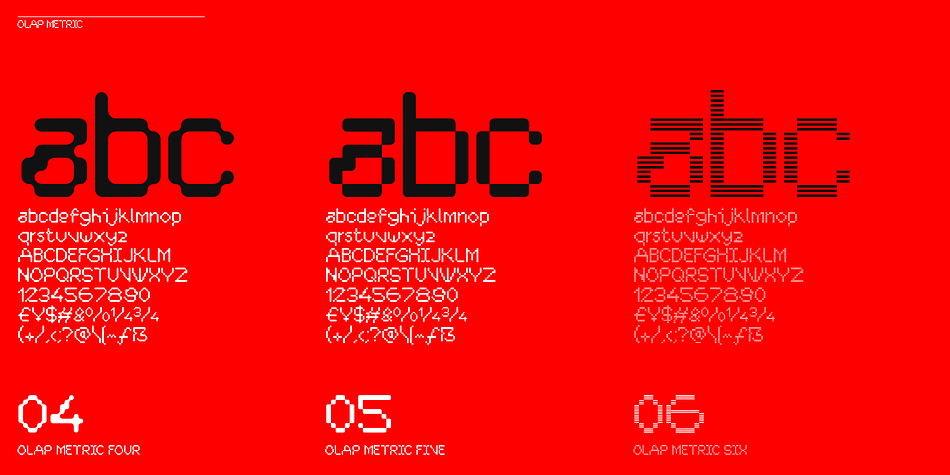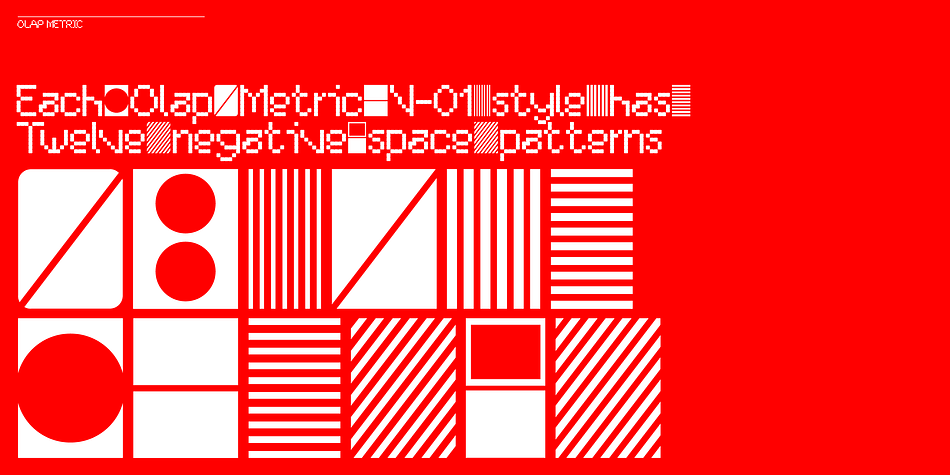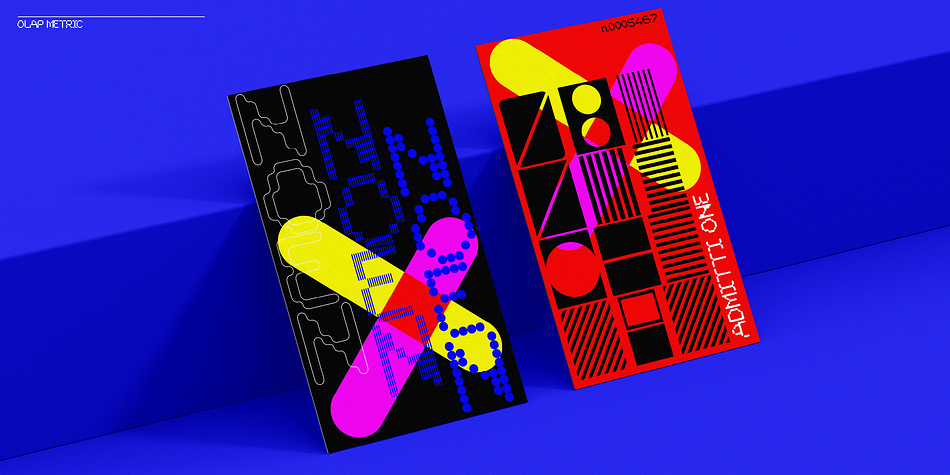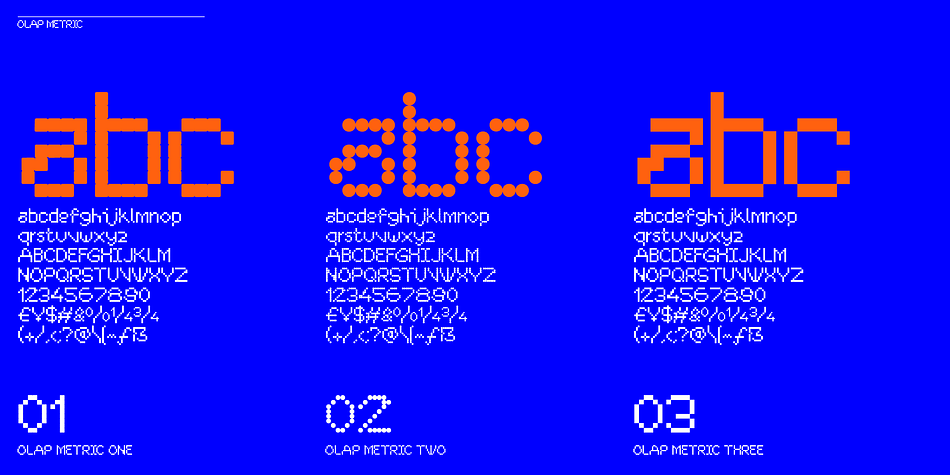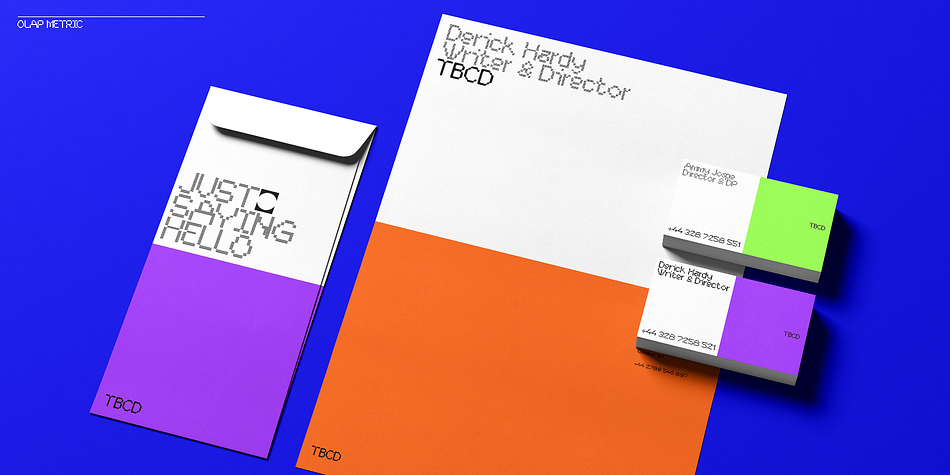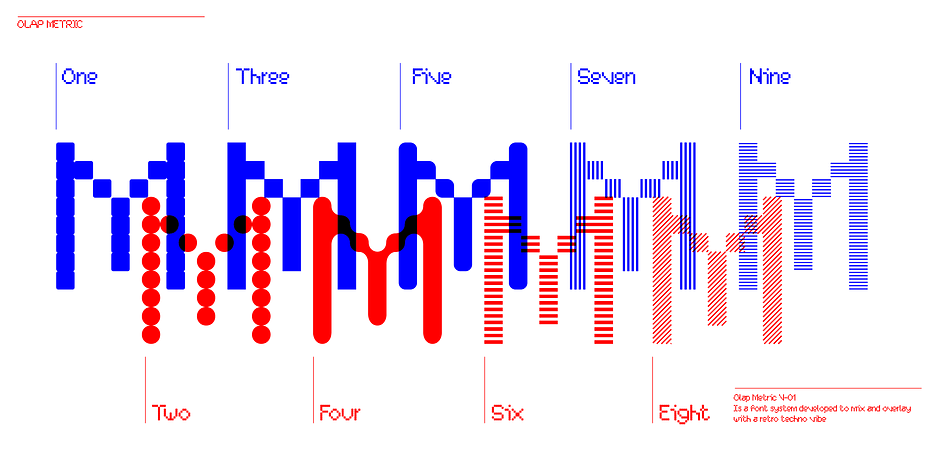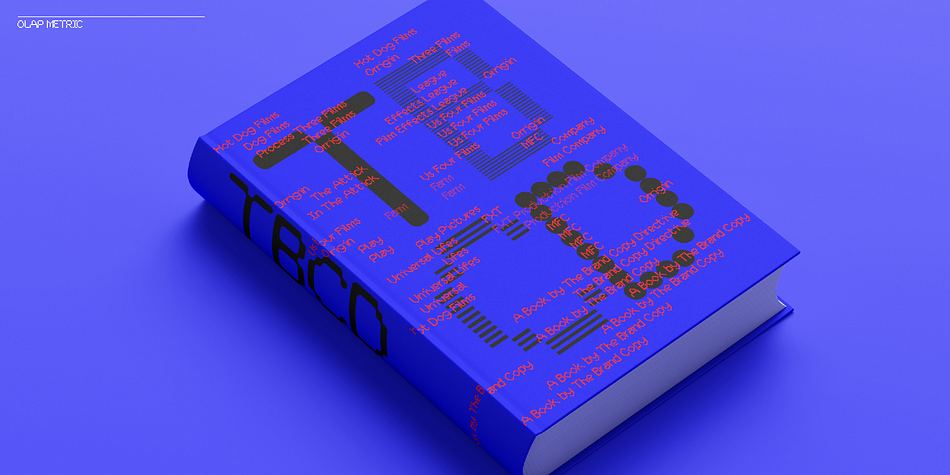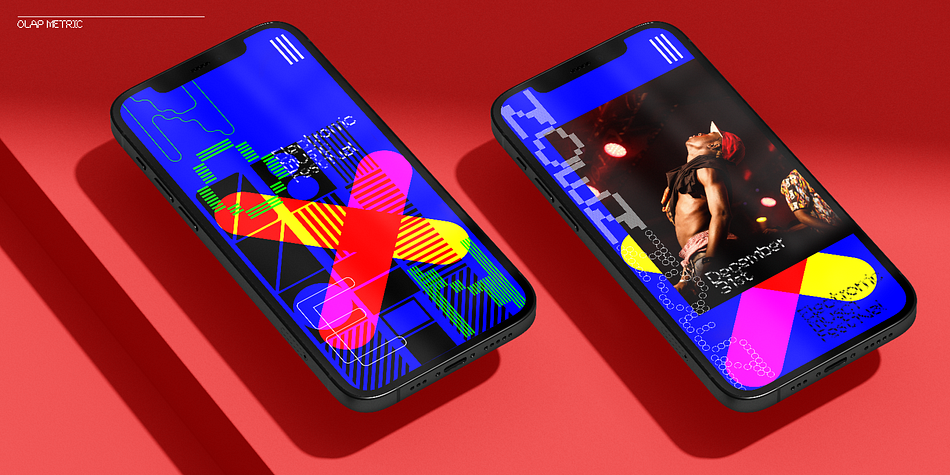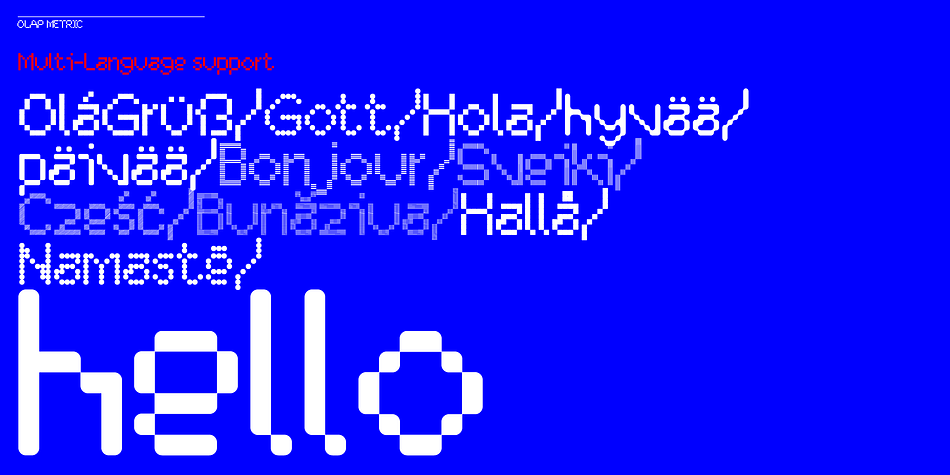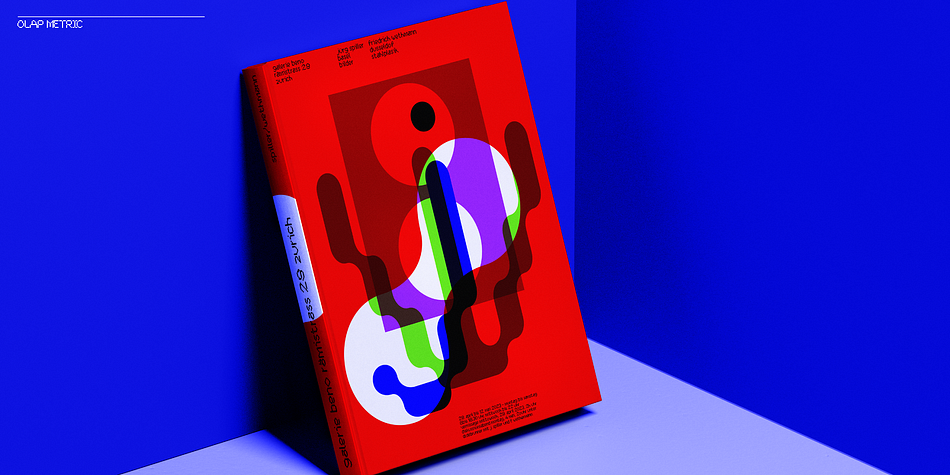
Designed by Paul Robb, Olap Metric is a pixel font family. This typeface has nine styles and was published by S6 Foundry.
Olap Metric is a modern, one-of-a kind font that will make your designs stand out against the competition. With 9styles and Multi-languages support, this stylistic display type has what you need for all sorts of projects! The family has been developed as a modern playing system allowing the mixing of infinite combinations. Perfectly suited for headlines, large-format prints, brand identities, social media, advertising, editorial design, posters, magazines, logos, headings, digital and more.